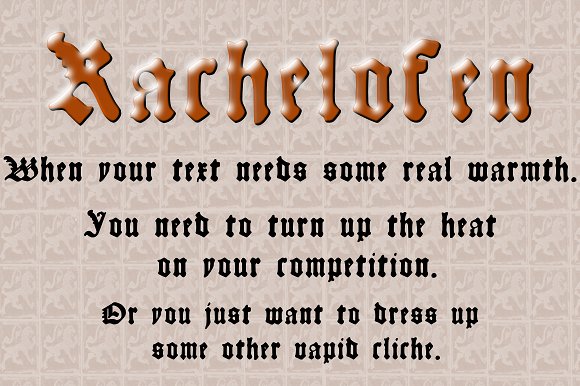
In the heart of Leipzig's printing history, Konrad Kachelhofen, a master printer, emerged in the 15th century. His workshop, a hub of creativity and innovation, boasted an impressive collection of typefaces that set the standard for excellence. Kachelofen Font, painstakingly crafted in his honor, captures the essence of his artistry and brings a touch of historical charm to your digital creations.
Embark on a typographic journey back in time with Kachelofen Font, a captivating blackletter font family that speaks of tradition and elegance. Its intricate swashes, reminiscent of hand-lettered manuscripts, add a touch of sophistication to logos, invitations, and vintage-inspired designs. Transport your audience to a bygone era, where the written word was an art form, and let Kachelofen Font tell your story with timeless beauty.
Dive into the depths of Kachelofen Font's two weights and experience the versatility it offers. The regular weight exudes a classic charm, perfect for creating elegant headlines, book covers, and posters. The bold weight, with its bolder strokes and striking presence, adds a touch of drama to titles, advertisements, and social media graphics. Whether you seek a subtle touch of history or a bold statement of individuality, Kachelofen Font has the answer.
More than just a font, Kachelofen Font is an embodiment of craftsmanship and历�. Its roots in the Leipzig printing scene give it a story to tell, a narrative that resonates with those who appreciate the finer things in life. With Kachelofen Font, your designs transcend the ordinary and become imbued with a sense of heritage and timeless appeal.